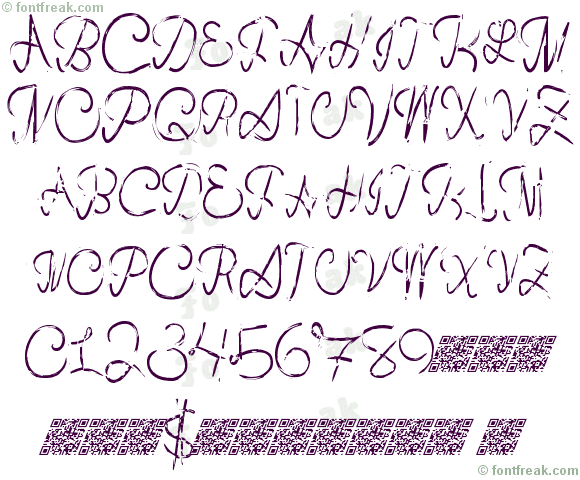
NorthCowboy
About NorthCowboy
The NorthCowboy font by Xerographer Fonts is a striking display typeface that embodies a unique blend of rustic charm and artistic flair. This font is characterized by its bold, hand-drawn appearance, featuring varying stroke weights that create an organic, dynamic feel. The letters are adorned with whimsical curves and decorative elements, giving NorthCowboy a distinct personality that captures attention and evokes a sense of adventure.
NorthCowboy is well-suited for a variety of creative applications. Its eye-catching style makes it an excellent choice for wedding invitations, where its artistic flair can add a personal touch. Additionally, the font's unique character makes it ideal for movie posters, particularly in genres that embrace a vintage or western aesthetic. Restaurant menus can also benefit from NorthCowboy, as its playful design can enhance the overall dining experience by offering a welcoming atmosphere. Furthermore, this font is perfect for branding projects aimed at small businesses looking to convey a sense of creativity and individuality.
The target audience for NorthCowboy includes graphic designers, small business owners, and content creators who seek to make a statement with their typography. Whether you are designing a logo or creating promotional materials, this font offers a versatile option that stands out in various contexts.